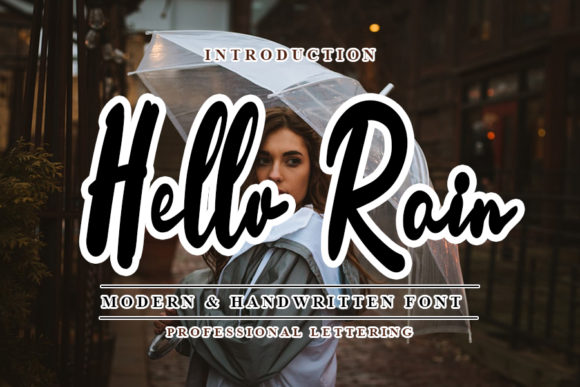
Welcome to the world of Hello Rain, a delightful handwritten font that will captivate your heart and bring your creative visions to life. Immerse yourself in the charm of its elegant characters, meticulously crafted to offer a harmonious blend of style and legibility.
Hello Rain's versatility knows no bounds; it effortlessly complements an array of design projects, from school assignments to personal invitations and everything in between. Its charming nature lends itself perfectly to crafting eye-catching headlines, heartfelt letters, whimsical posters, and enchanting social media posts. Unleash your creativity and let Hello Rain transform your words into works of art.
This captivating font possesses a unique ability to evoke emotions and create lasting impressions. Its graceful lines and enchanting curves dance across the page, captivating readers and drawing them into your message. Hello Rain's inherent charm will make your words stand out, whether you're composing a heartfelt letter to a loved one or crafting a compelling marketing campaign.
Experience the joy of effortless creativity as Hello Rain seamlessly blends into your design aesthetic. Its well-balanced characters harmonize beautifully with a myriad of visual elements, enhancing the impact of your graphics, illustrations, and photographs. Hello Rain possesses the remarkable ability to elevate your designs, transforming them into captivating masterpieces.
Don't miss out on the opportunity to add Hello Rain's magic to your creative arsenal. Embrace the limitless possibilities it offers and watch your projects flourish with its timeless beauty. Let Hello Rain shower your designs with elegance, charm, and boundless creativity.